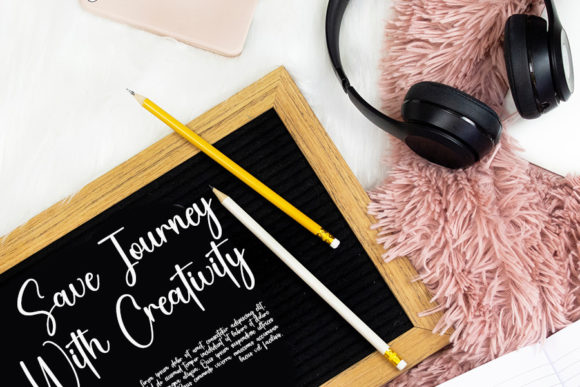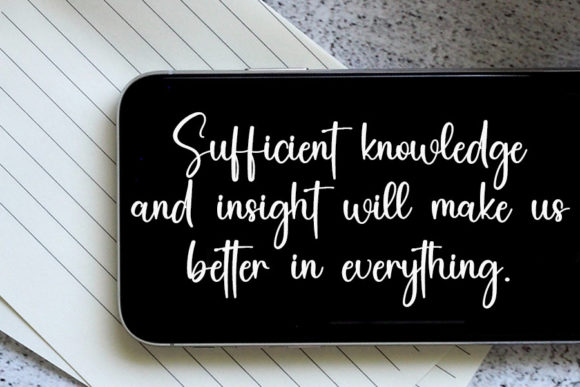
Journalistic Font
db-ku.com - Script & Handwritten -- Journalistic is a stylish handwritten font with a contemporary atmosphere and impeccable form, inspired by a timeless classic calligraphy. Balanced and varied, this font was designed to enhance the beauty of your projects.